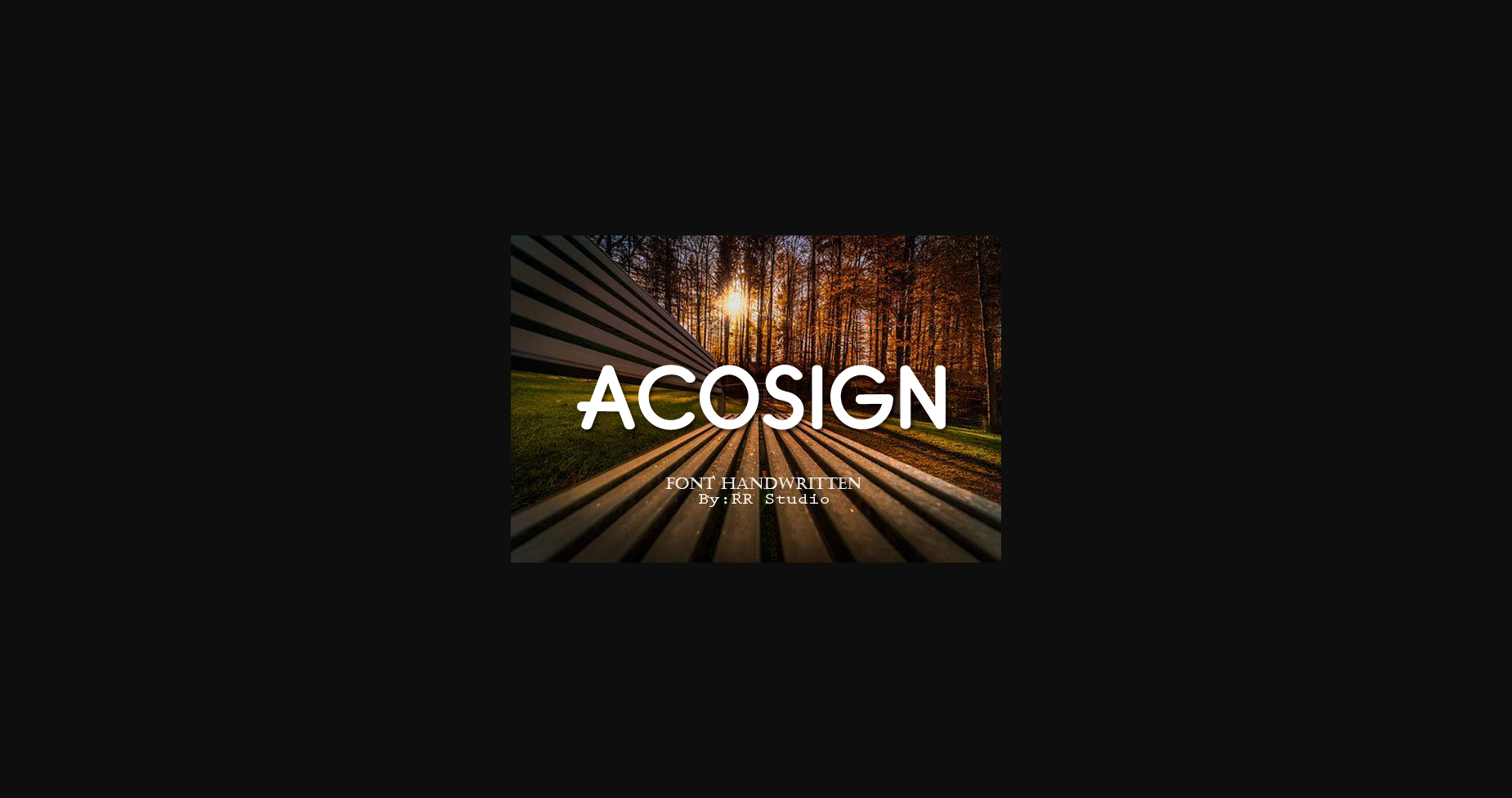
About Acosign Font
Acosign is a ravishing sans serif font. This versatile typeface has a wide spectrum of applications ranging from greeting cards to headlines and is guaranteed to add a modern feel to your next project.